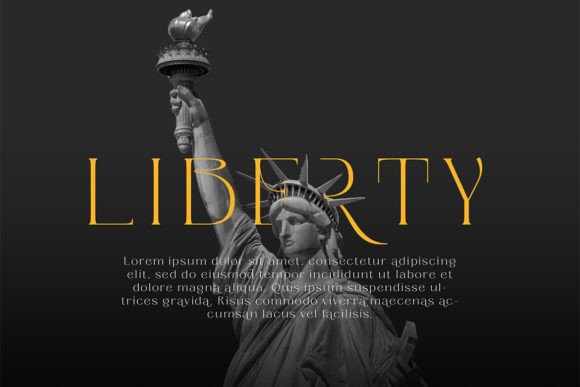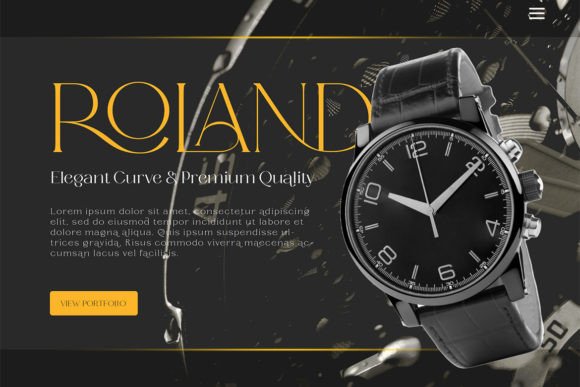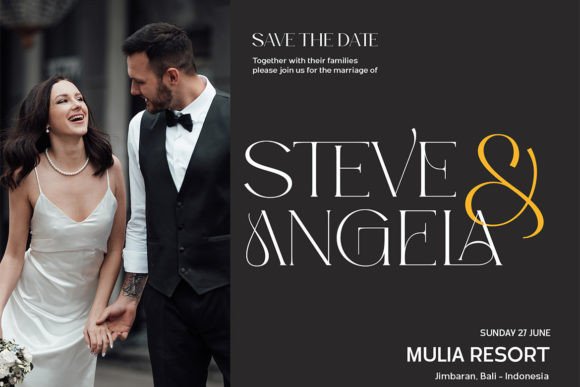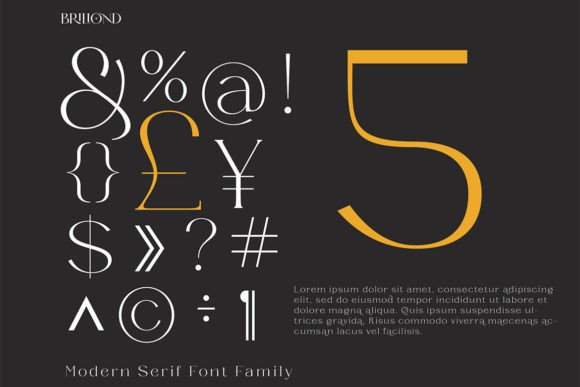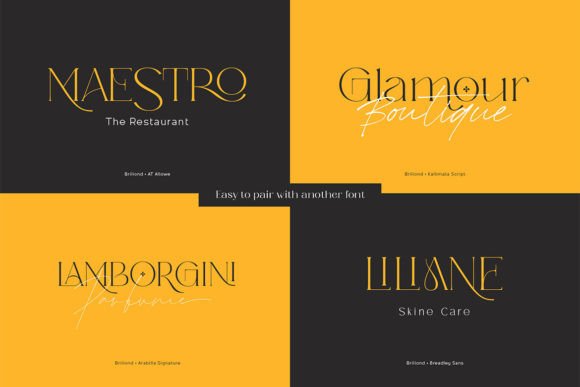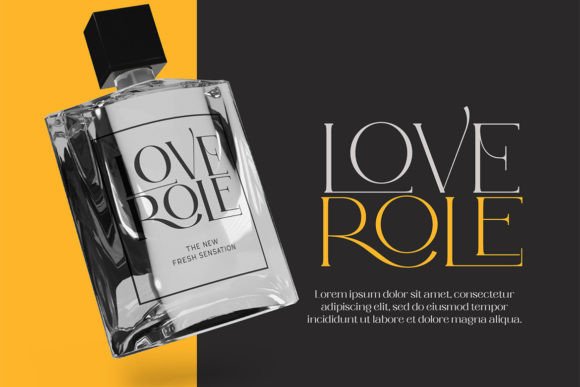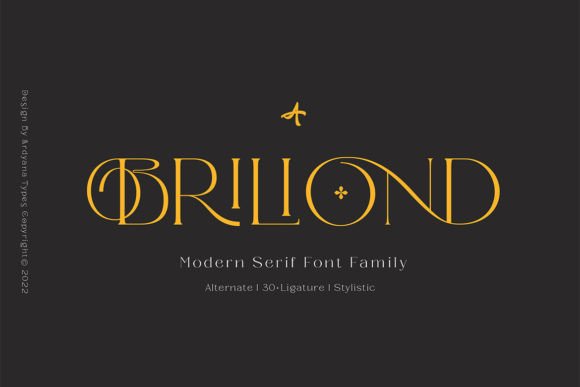
Introducing Briliond Font: Elevate Your Designs with Sophistication and Elegance
In the world of typography, fonts play a crucial role in conveying the tone and personality of a design. For those seeking a sophisticated, charming, and fashionable touch, Briliond Font is an exceptional choice. This exquisite serif font is specifically designed for luxury, elegant, and feminine projects, making it perfect for creating modern, chic designs that exude refinement and poise.
The Essence of Briliond Font
Briliond Font is a masterpiece of typographic artistry, boasting a unique blend of classic elegance and modern flair. Its serif design adds a touch of sophistication, while its fashionable curves and lines infuse a sense of chicness. This font is meticulously crafted to cater to the needs of designers and crafters who aim to create stunning, high-end visuals that captivate their audience.
Key Features of Briliond Font
• Sophisticated Serif Design: Briliond Font features a classic serif design that exudes elegance and refinement, making it perfect for luxury brands and high-end projects.
• Fashionable Touch: The font’s modern curves and lines add a fashionable twist, allowing designers to create chic and trendy designs that appeal to a wide audience.
• Elegant and Feminine: Briliond Font is specifically designed for elegant and feminine projects, making it an excellent choice for brands and designers who cater to a female audience or aim to create a sophisticated, luxurious feel.
• Modern and Chic: The font’s unique blend of classic and modern elements makes it perfect for creating modern, chic designs that stand out in a crowded market.
Use Cases for Briliond Font
Briliond Font is an incredibly versatile typeface that can be used in a wide range of design projects, including:
• Luxury Brands: Elevate your luxury brand’s visual identity with Briliond Font’s sophisticated and elegant design.
• Fashion and Beauty: Create stunning fashion and beauty designs that exude elegance and refinement with Briliond Font.
• Wedding and Event Design: Add a touch of sophistication and romance to your wedding and event designs with Briliond Font.
• Packaging and Product Design: Use Briliond Font to create luxurious and eye-catching packaging and product designs that stand out on store shelves.
Why Choose Briliond Font?
With so many fonts available, why choose Briliond Font? Here are a few compelling reasons:
• Unique and Exclusive: Briliond Font is a unique and exclusive typeface that will set your designs apart from the competition.
• High-Quality Design: The font is meticulously crafted to ensure high-quality design and exceptional legibility.
In conclusion, Briliond Font is an exceptional choice for designers and crafters seeking a sophisticated, charming, and fashionable serif font. Its unique blend of classic elegance and modern flair makes it perfect for luxury, elegant, and feminine projects. With its high-quality design, ease of use, and versatility, Briliond Font is sure to elevate your designs and help you create stunning visuals that captivate your audience.